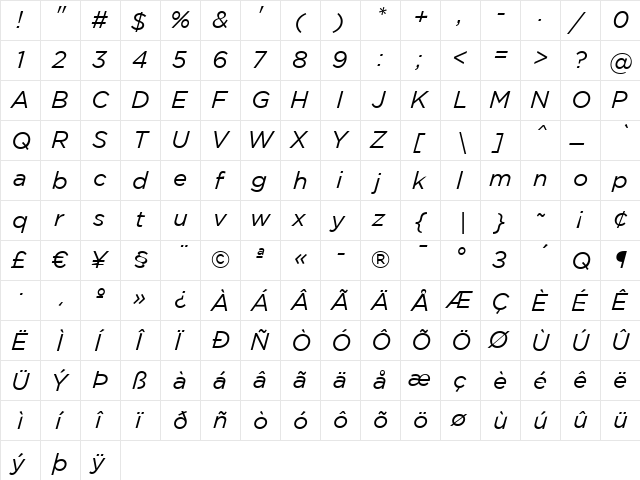
Gotham Book Italic
Design Context for Gotham Book Typeface
Gotham Book is a composed and adaptable typeface that performs quietly and consistently across a wide range of design contexts. The dynamic lean of this cut emphasises speed and emphasis in any layout.
Pro Tip: Use Gotham Book for emphasis, pull quotes, and subheadings where its slanted energy can add rhythm to the layout.